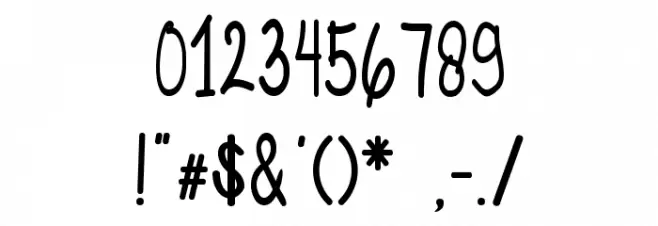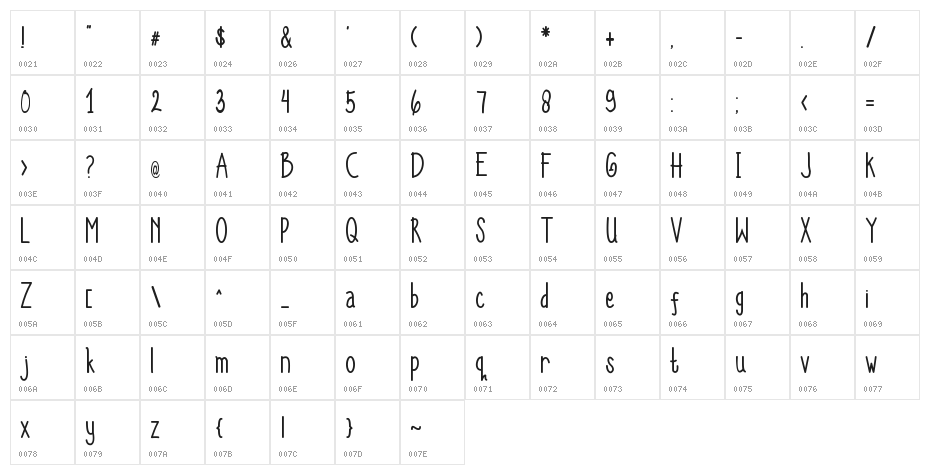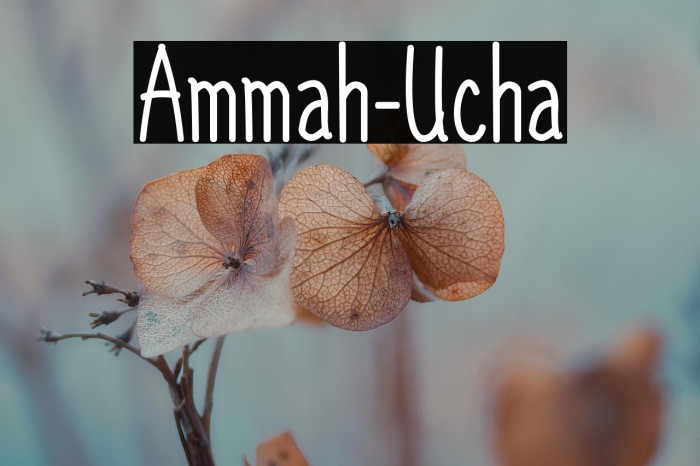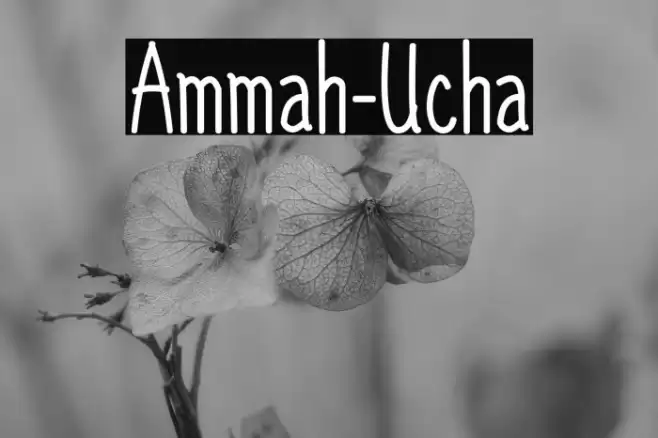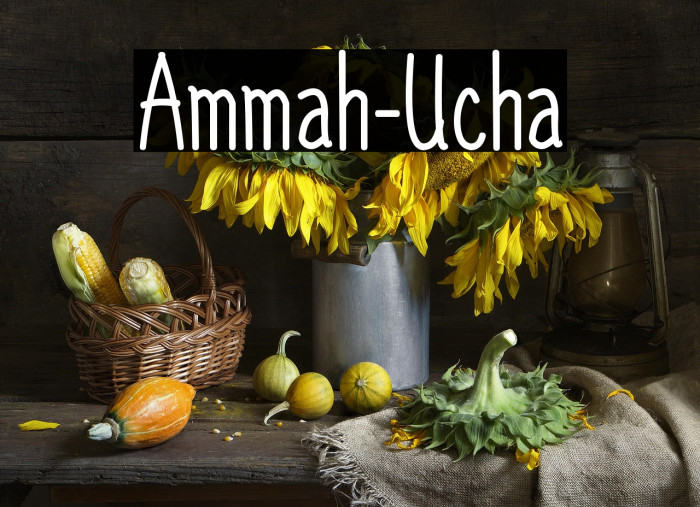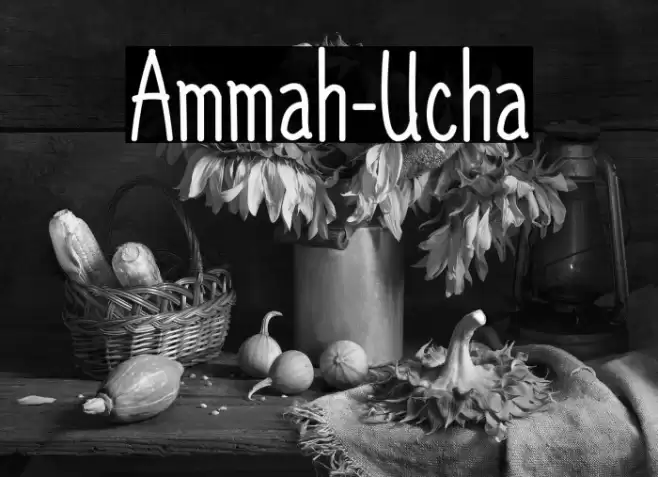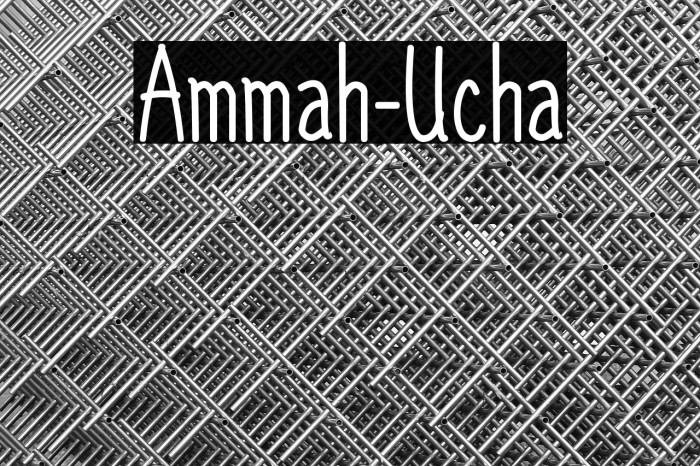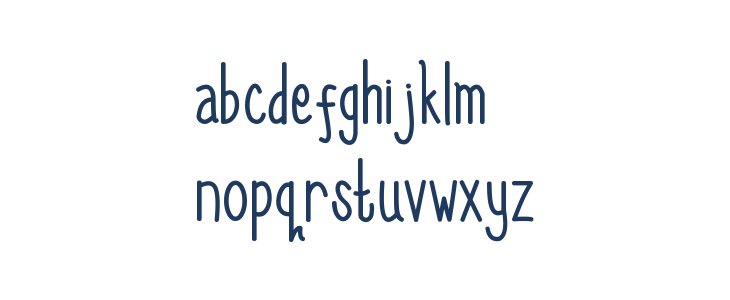
Ammah-Ucha Font
Ammah-Ucha Description
This playful and whimsical font features a hand-drawn style with a casual and friendly appearance. The letters are slightly irregular, giving it a unique and approachable character. The uppercase letters are tall and narrow, while the lowercase letters maintain a consistent height, adding to its charm. The numerals and special characters follow the same playful design, making it versatile for various uses. Its informal style makes it perfect for creative projects that require a personal touch.